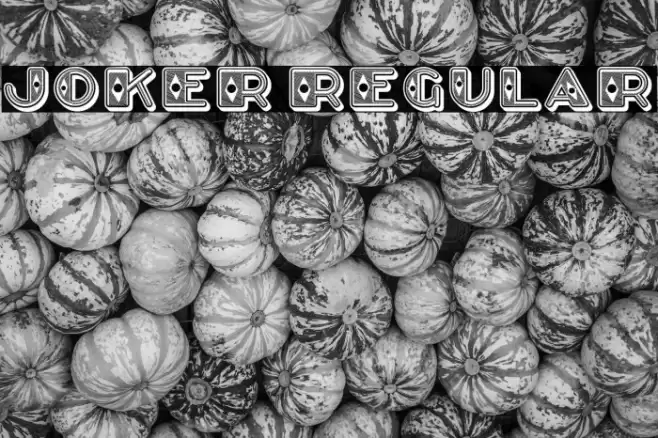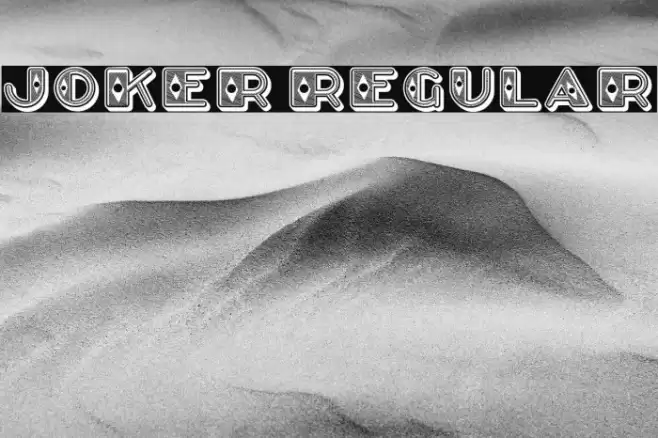
Joker Regular Font
Joker Regular Description
This font features a playful and decorative style, characterized by bold, blocky letters with intricate patterns and shading within each character. The design includes a mix of geometric shapes and dots that add a whimsical touch, making it stand out as a unique and eye-catching typeface. Each letter is outlined with a thick border, enhancing its visibility and adding depth. The font's overall appearance is lively and dynamic, suitable for creative and informal applications where a fun and engaging look is desired.
A playful, decorative font with bold, patterned letters and thick outlines from Uncategorized fonts.
- Proposed Projects: Ideal for children's book covers, playful posters, party invitations, and any project requiring a fun and engaging typeface.